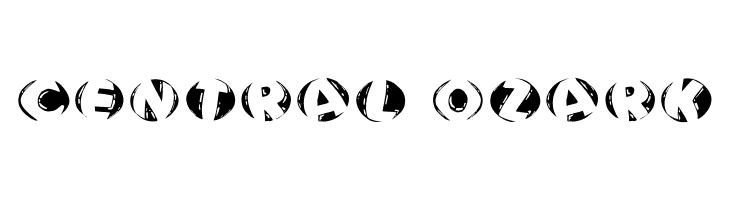
Maritime Tropical Double Bold Font
- Font: Maritime Tropical Double Bold
A bold, woodcut-style font with circular enclosures and artistic flair.
A bold, woodcut-style font with a hand-carved, textured appearance.
A bold, decorative font with a woodcut effect and circular enclosures.
A hand-drawn, woodcut-style decorative font with circular outlines.
A bold, woodcut-style font with a rustic, handcrafted appearance.